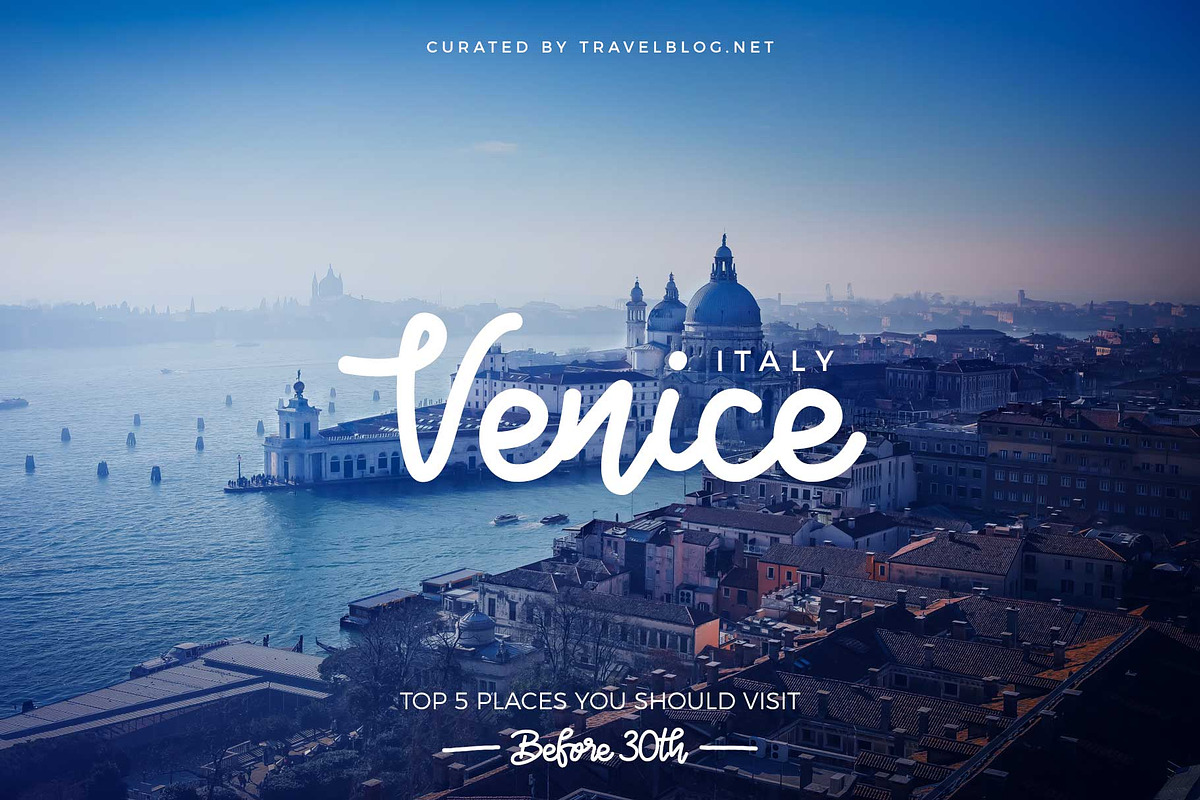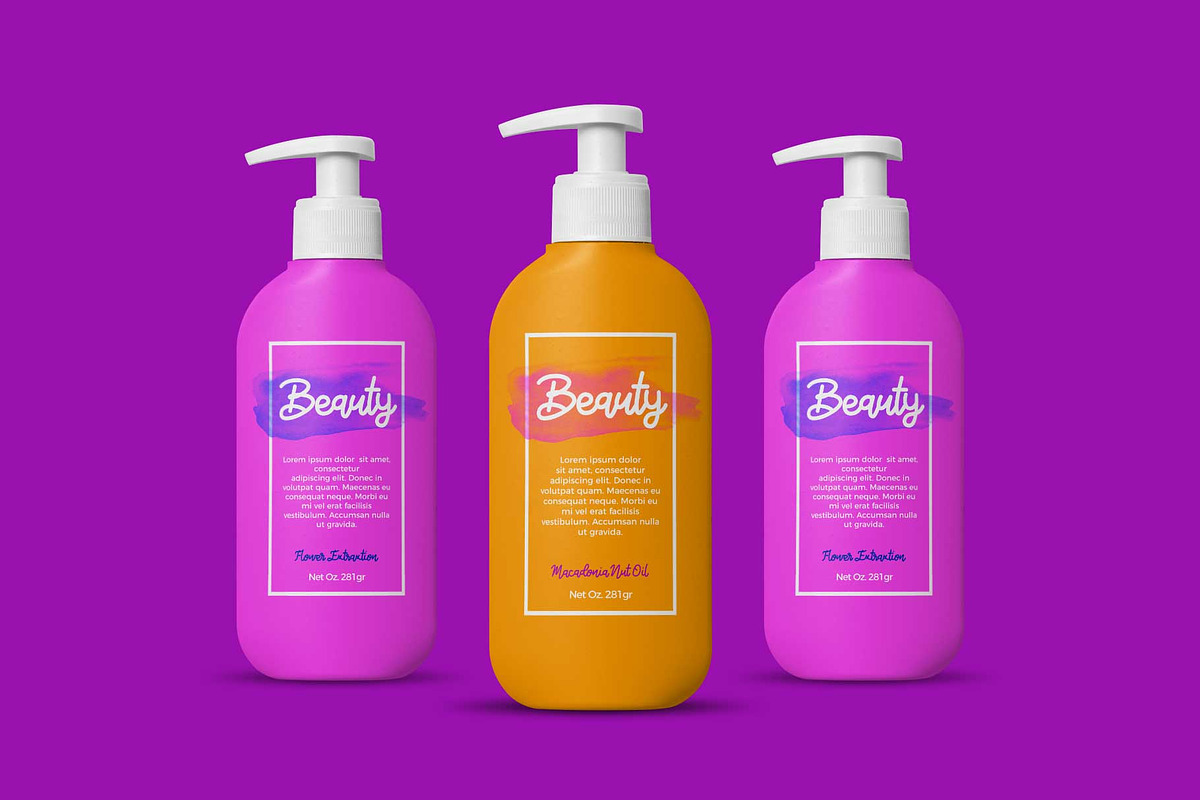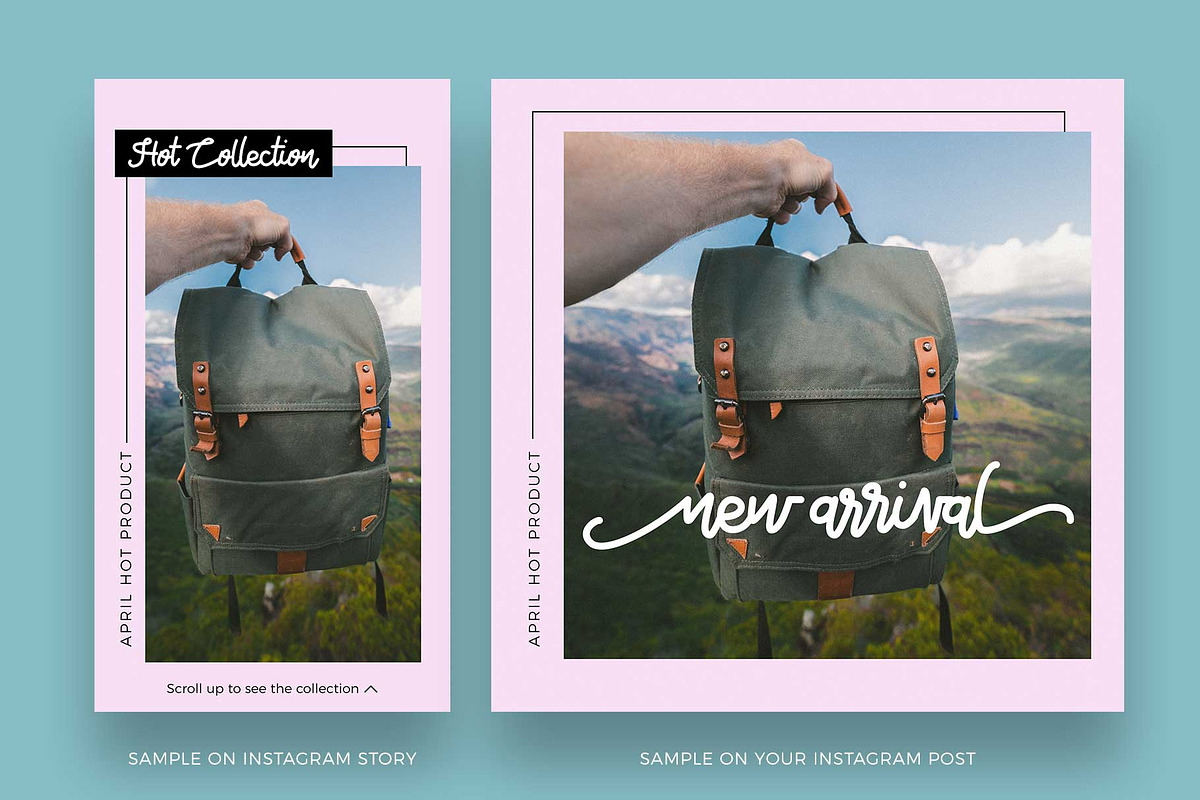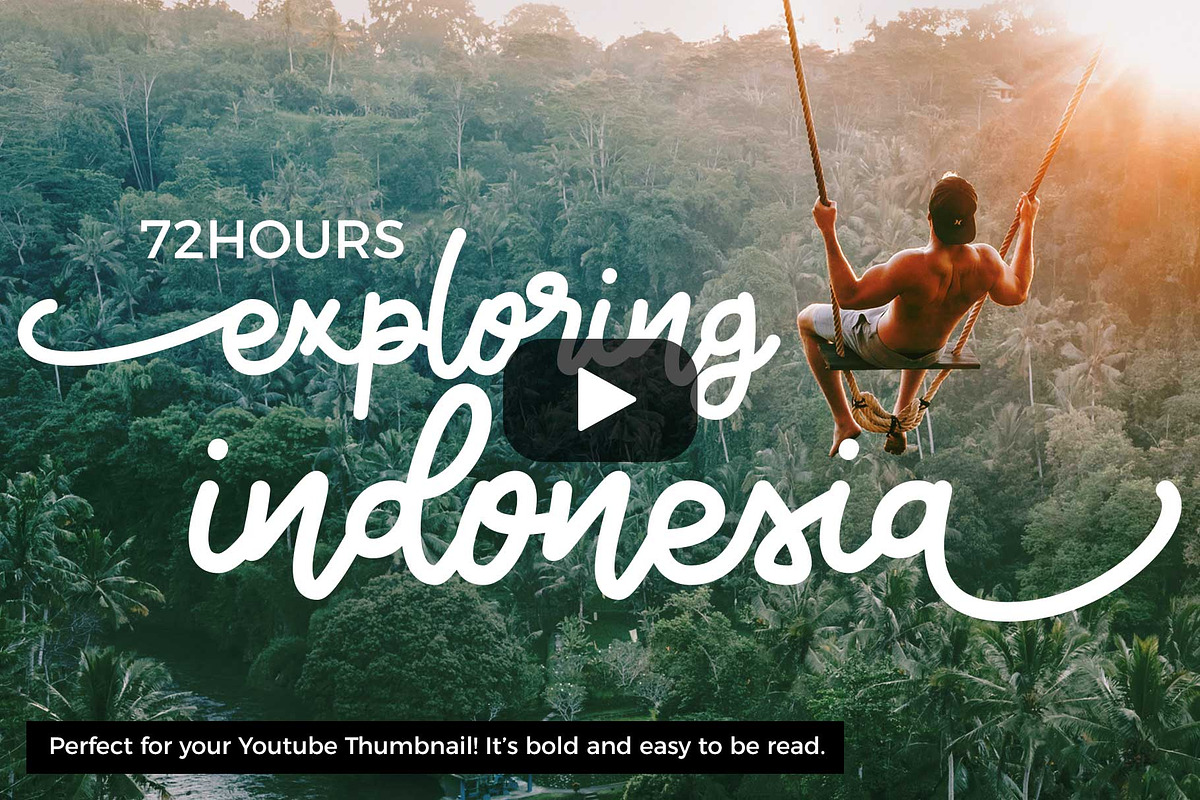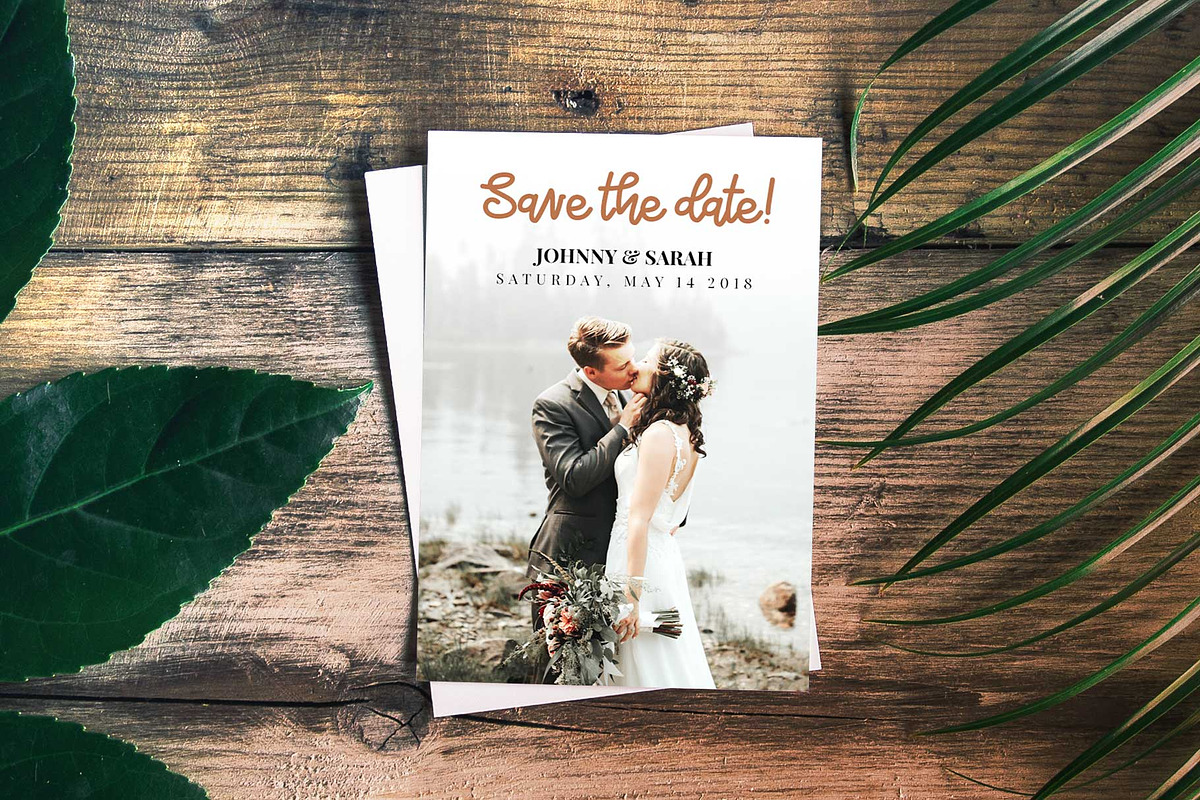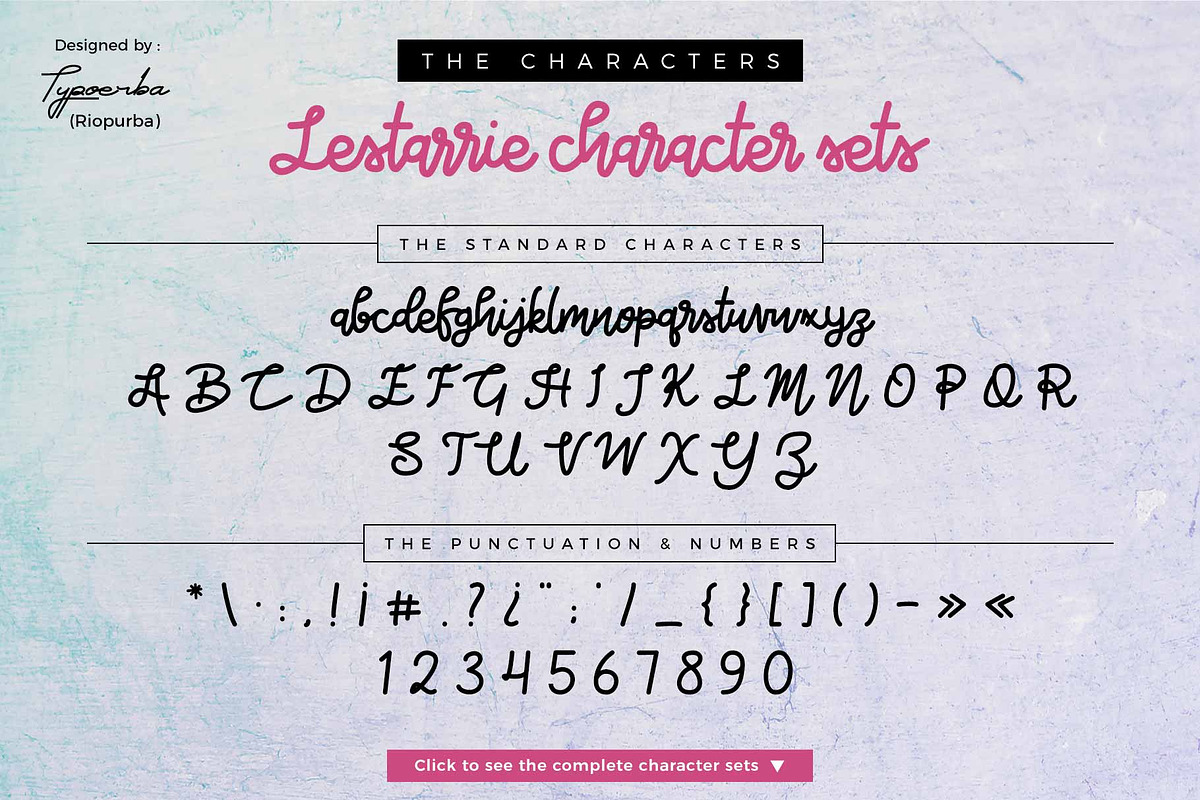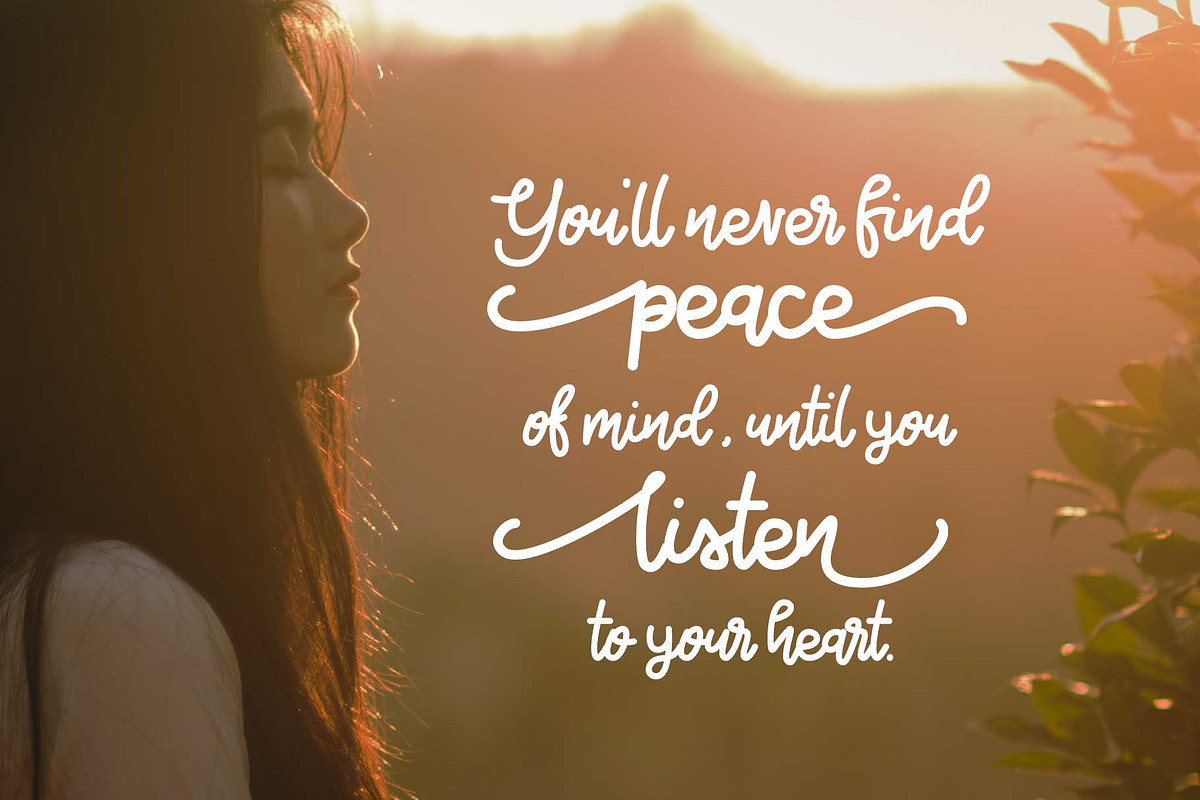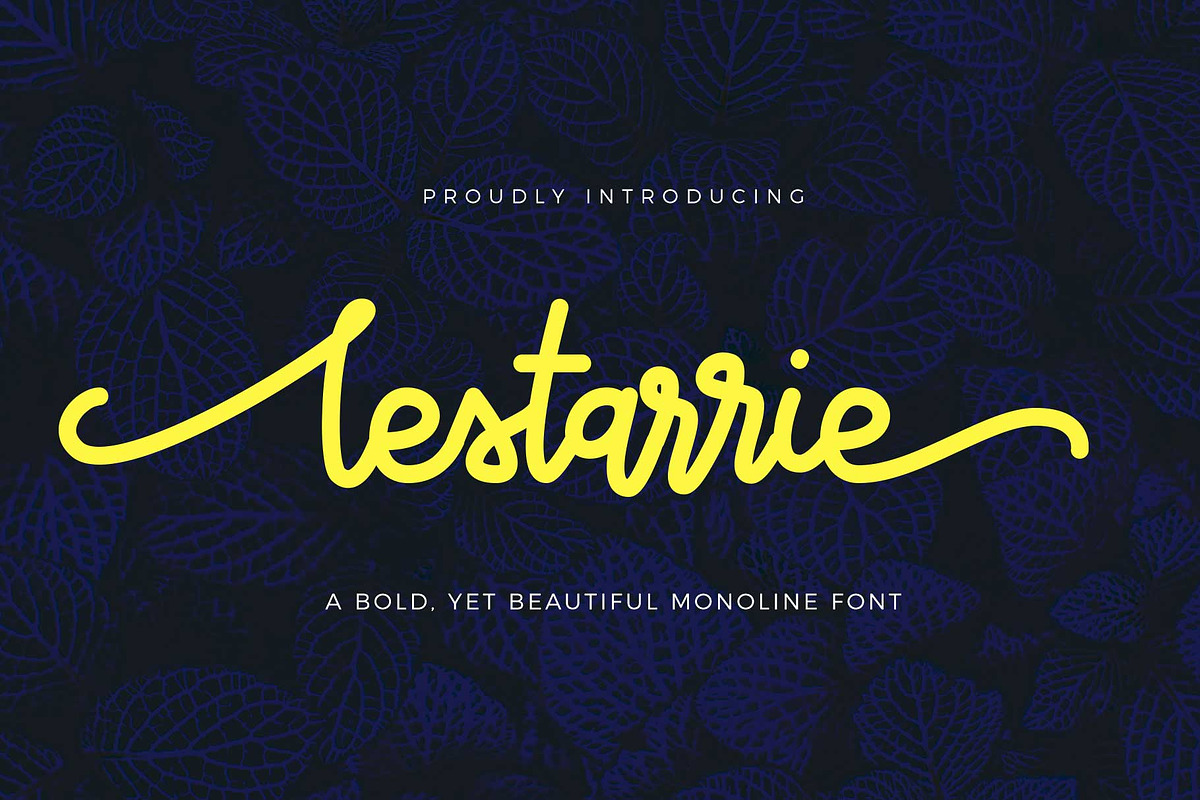
Lestarrie Monoline Font
Introducing : Lestarrie | a Script Monoline Font
Lestarrie is a bold yet beautiful script monoline font that you can use for any purposes of your projects, such as logos & branding, invitation, stationery, wedding designs, social media posts, advertisements, product packaging, product designs, label, photography, watermark, special events or anything that need handwriting taste.
This font will be also perfect for you, the Youtubers and Vloggers, to make a beautiful and easy to be read Youtube Thumbnail. I've already included the whole sample designs in the previews above.
-- LARGE GLYPH SETS : There are 467 total glyphs in this font pack. Lestarrie comes with a large range of glyphs including punctuation, numerals, international language support, ligatures & additional extra glyphs for stylistic sets. It includes 126 Glyphs of Ligatures & 125 Glyphs of Stylistic Sets to make your text looks natural and beautiful.